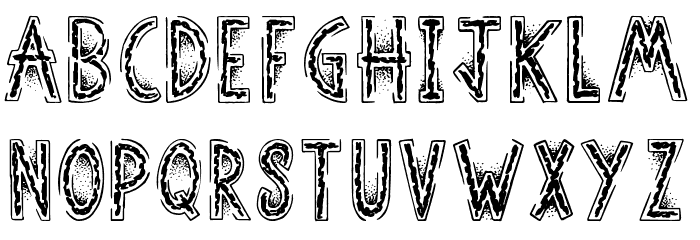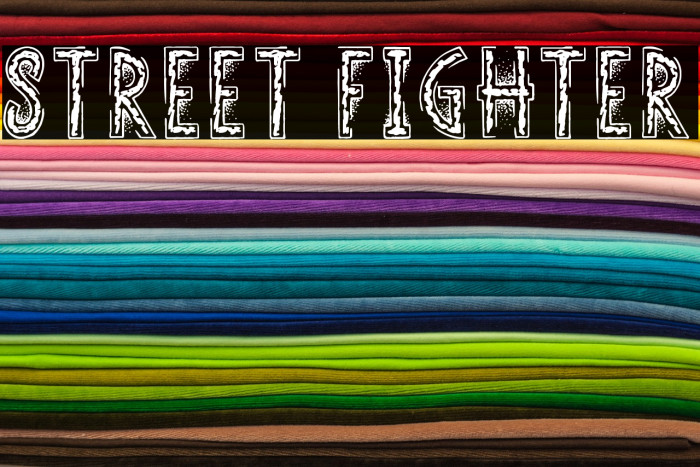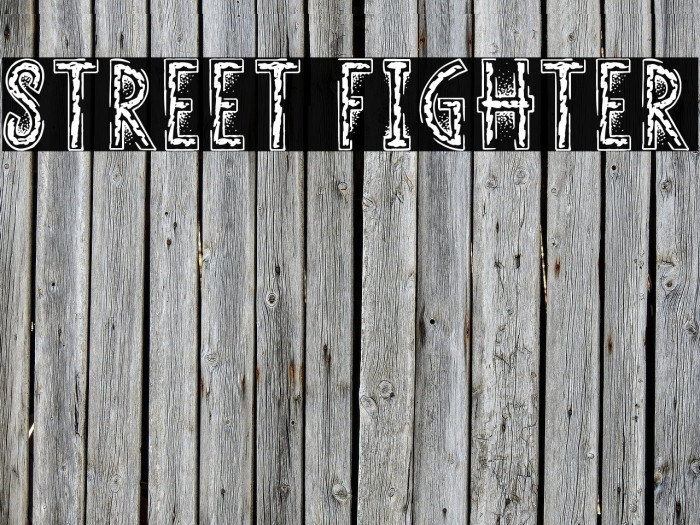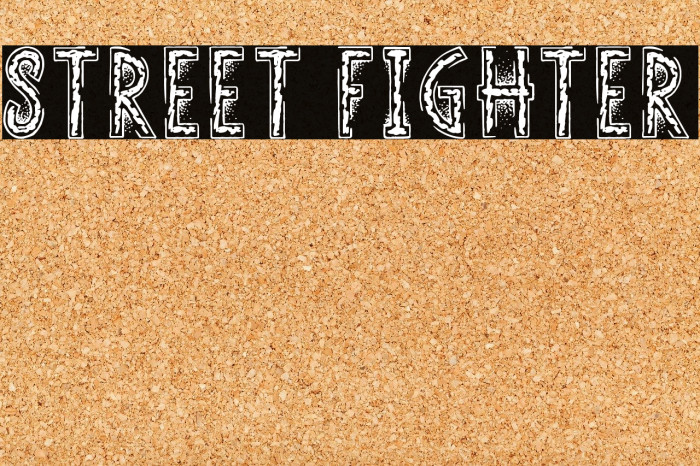
Street Fighter Font
This font features a rugged, distressed style with a bold, impactful presence. Each character appears as if it has been weathered or eroded, giving it a gritty, urban feel. The uppercase letters are prominently displayed, with each letter exhibiting unique textures and irregular edges that contribute to its raw aesthetic. The font's design is reminiscent of street art or graffiti, making it suitable for projects that require a bold, edgy look. The characters are well-defined despite their distressed appearance, ensuring readability while maintaining a strong visual impact.
A rugged, distressed font with a bold, urban aesthetic.
- Proposed Projects: Ideal for street art designs, urban-themed posters, video game graphics, and edgy branding projects.
- Overall Style: Urban, Edgy, Distressed